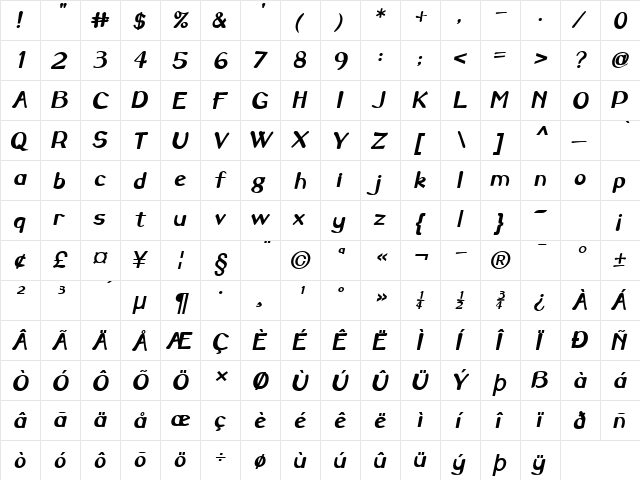
Savoy Bold Italic
Design Context for Savoy Typeface
Savoy offers clean, dependable letterforms without strong stylistic allegiance, making it a practical choice for designers who need flexibility. The dynamic lean of this cut emphasises speed and emphasis in any layout. The heavy weight commands attention and anchors typographic hierarchies.
Pro Tip: Use Savoy for emphasis, pull quotes, and subheadings where its slanted energy can add rhythm to the layout.